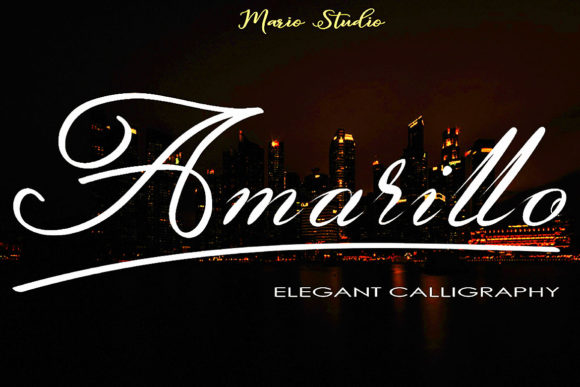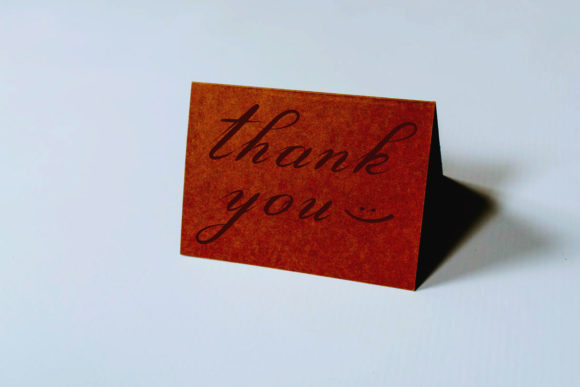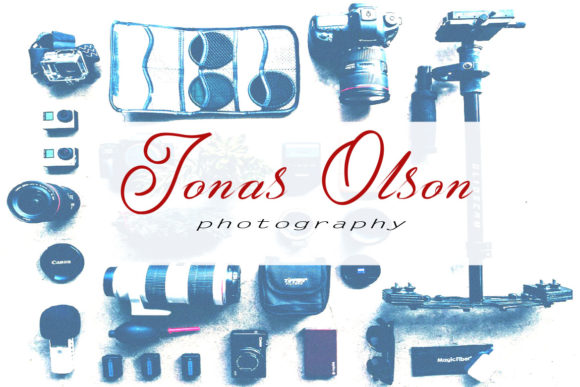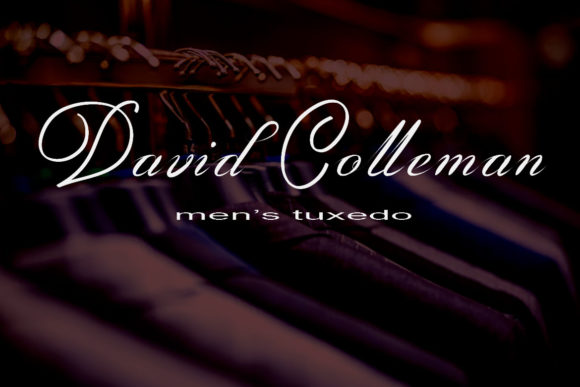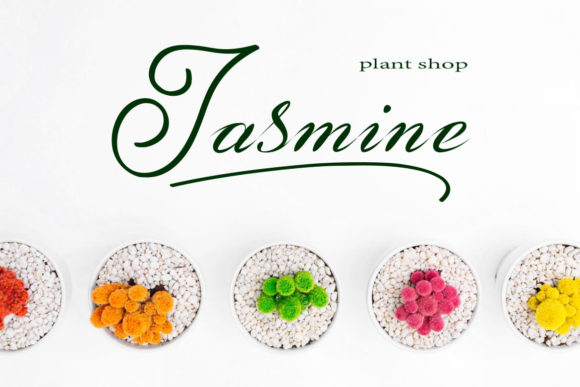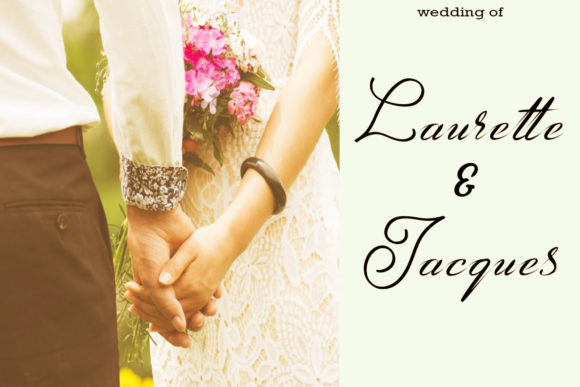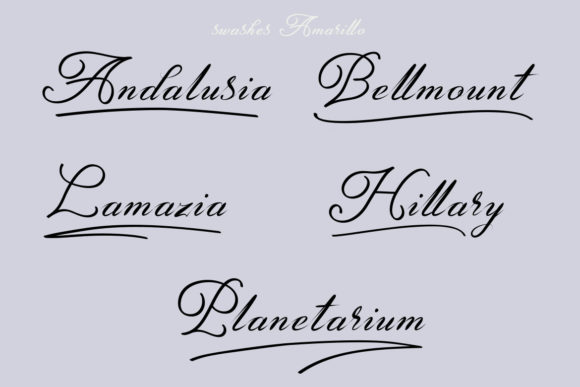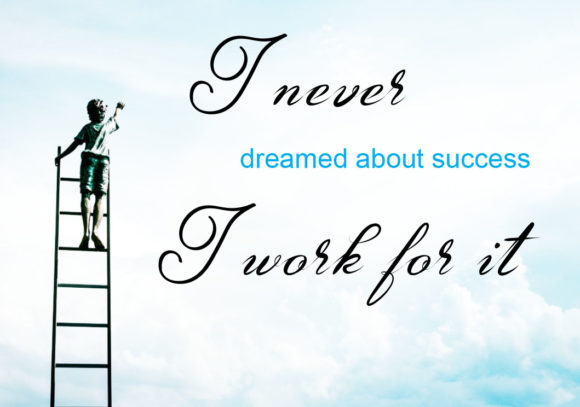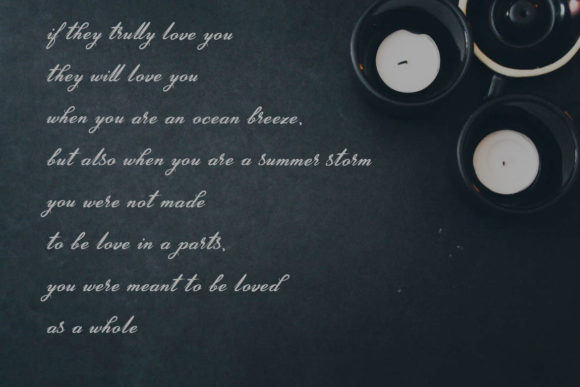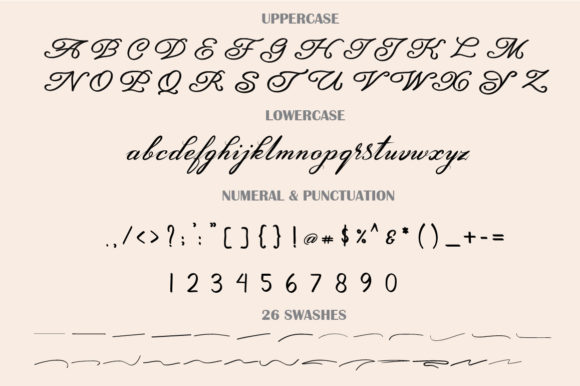
Amarillo Font
About Amarillo Font
The Amarillo is an elegant calligraphy font. It has a luxurious feel and a natural writing style.
It’s suitable for logos, watermarks on photography, signatures, quotes, album covers, business cards, clothing, magazines, posters and much more!